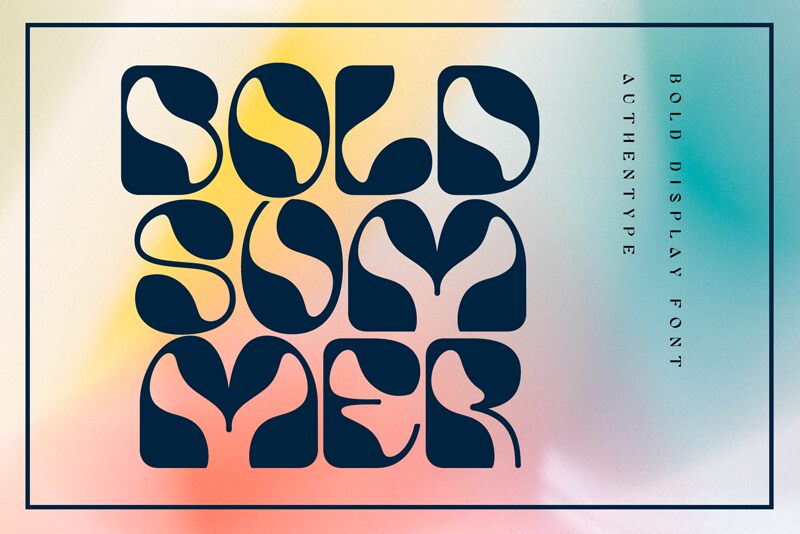
Bold Summer font by Authentype is a free groovy typeface that is ready to spice up your designs. Its nature resembles the 1960s and 1970s graphic trends, and even though originally installed as a display type in advertising, its vibe was revived in other sectors and disciplines such as music. Playful, experimental, and out of the traditional, the groovy vibe is strong in Bold Summer.
A typeface for fun events and projects, this font is perfect for invitations, social media posts, and posters, all of which can share the same lively attitude. Showcase your dynamic branding designs and use Bold Summer for gift cards, packaging boxes, and even business cards.